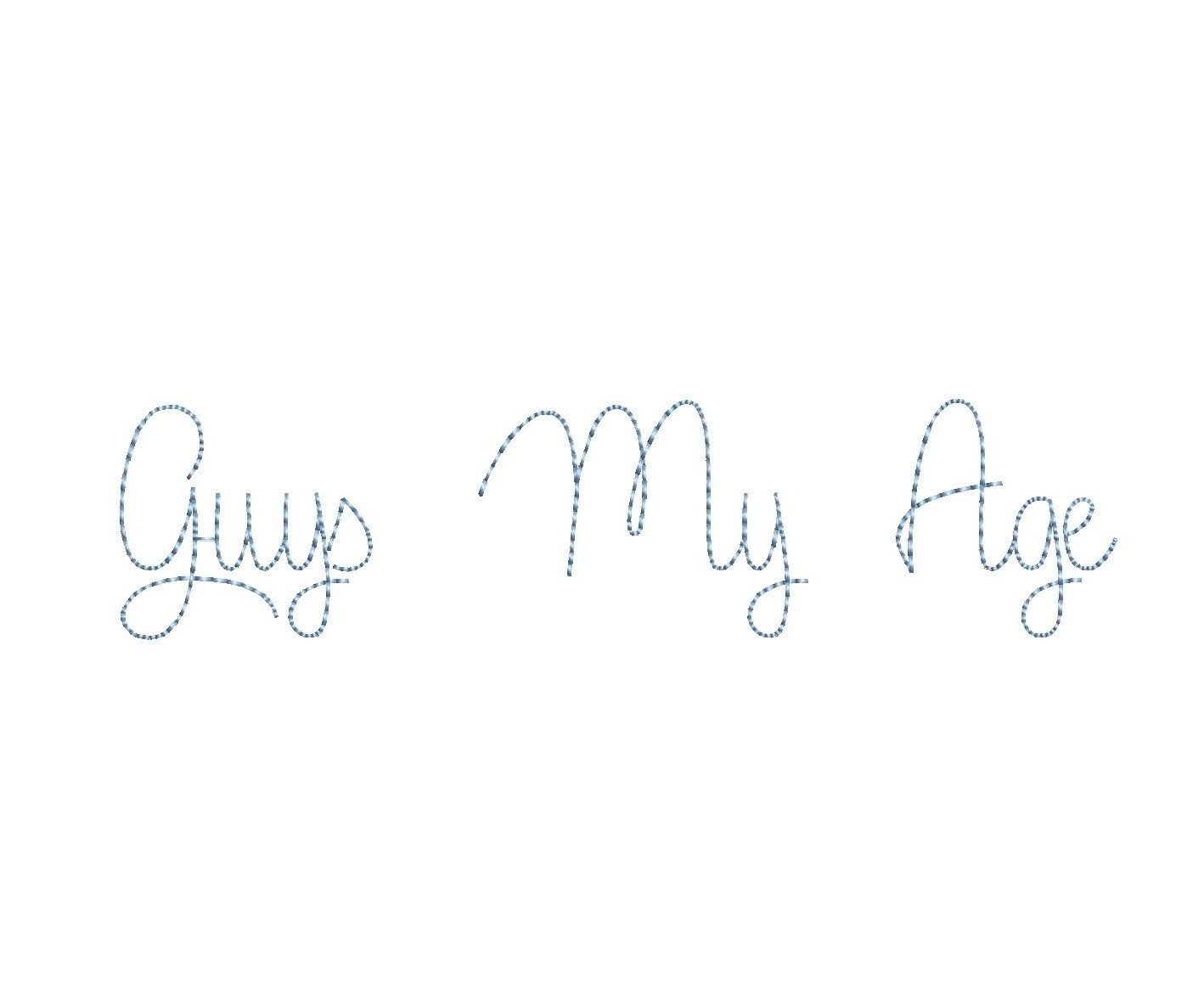
Unleash boldness with 'Guys My Age Bean Stitch ESA' font, crafted for embroidery enthusiasts seeking edgy and contemporary designs. This captivating typeface adds a touch of attitude to your creations, elevating them with a modern flair. Seamlessly compatible with Wilcom Studio e4.5.6 and Hatch 3 versions and above, it effortlessly integrates into your digitizing workflow. Its sleek lines and precise bean stitches ensure impeccable stitch quality, making your embroidery projects stand out with confidence. Ideal for trendy monograms, quotes, and decorative elements, this ESA font sparks creativity and guarantees a masterpiece that resonates with the spirit of today's guys. Embrace 'Guys My Age Bean Stitch ESA' font today!